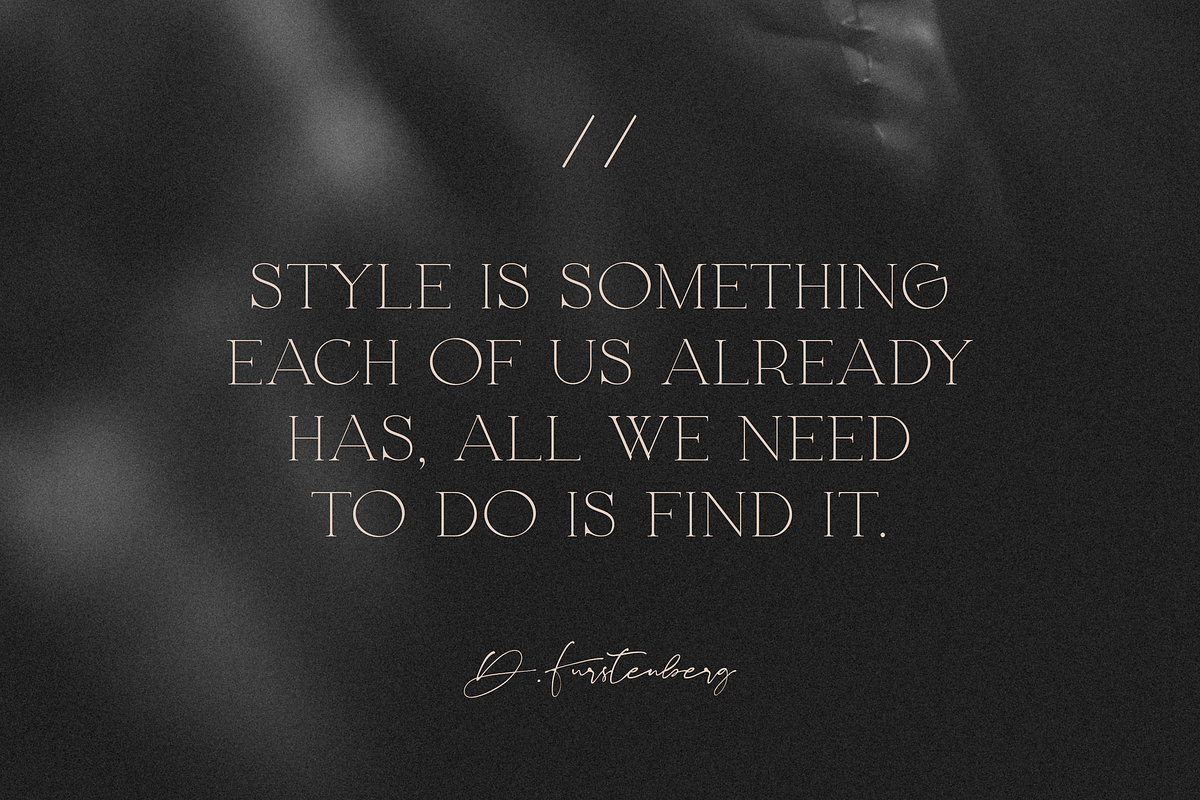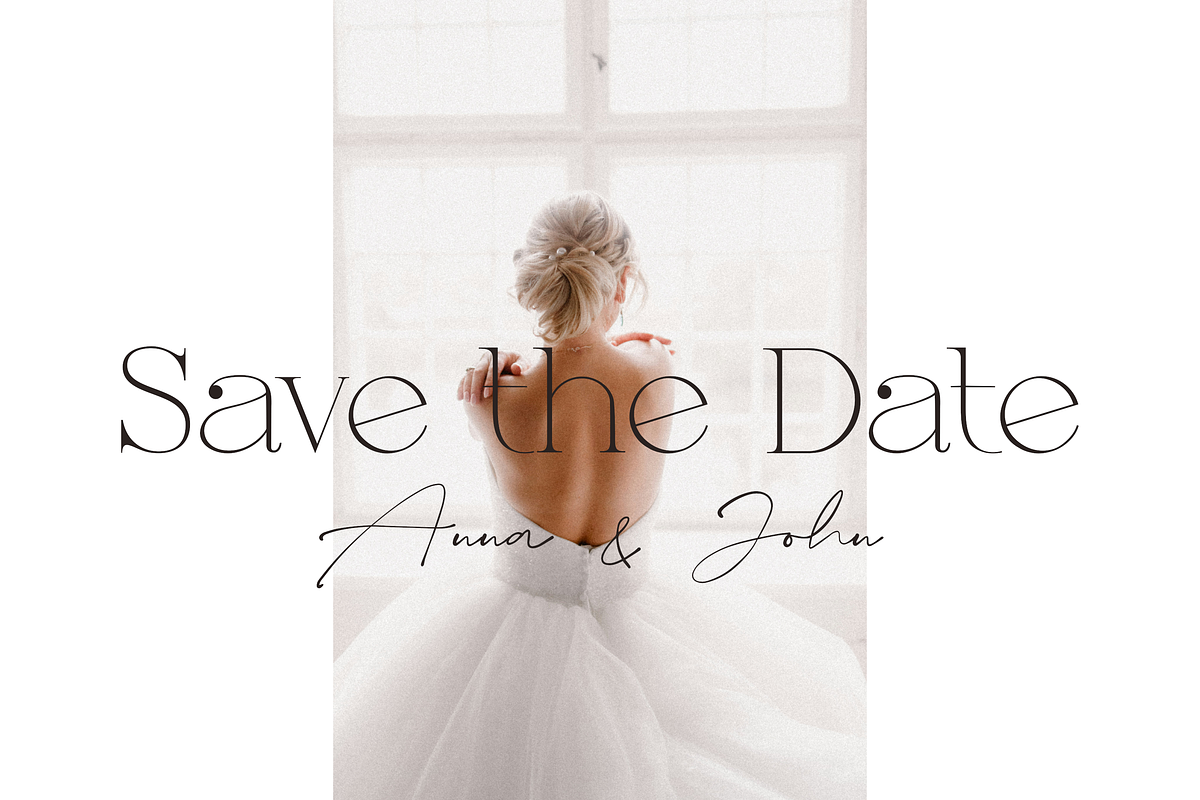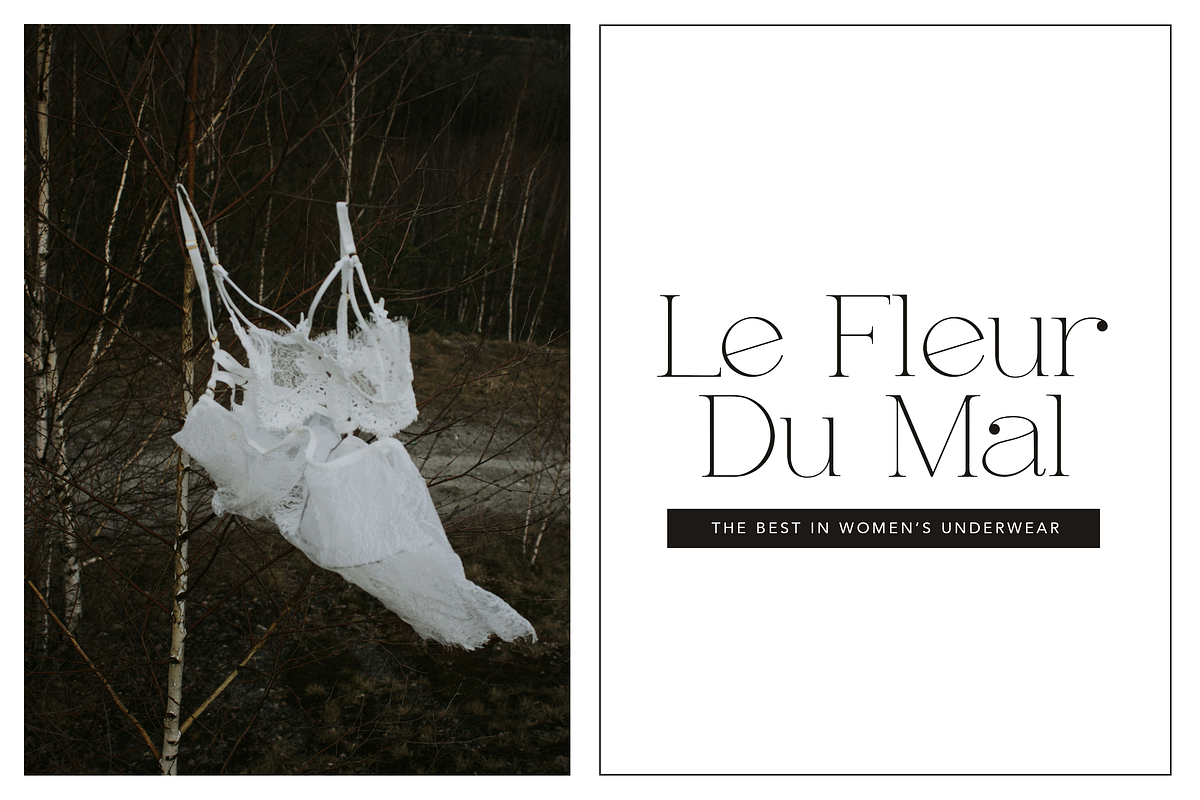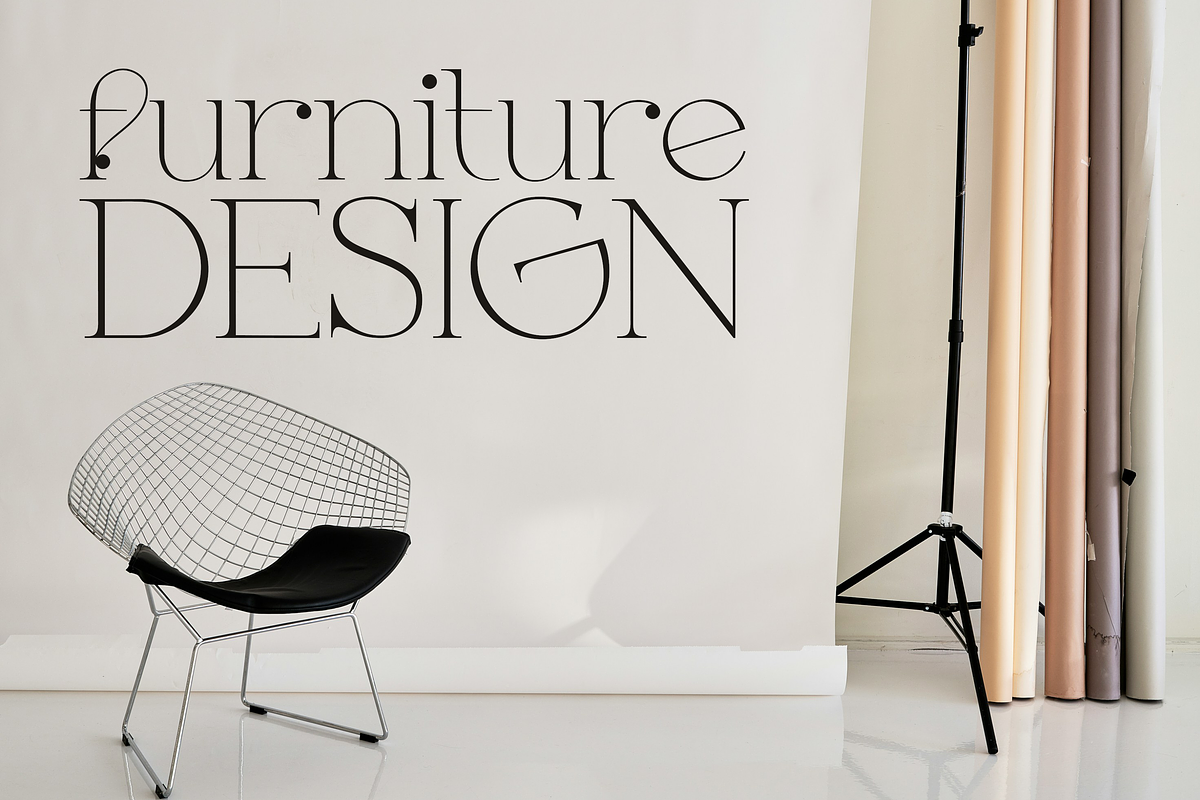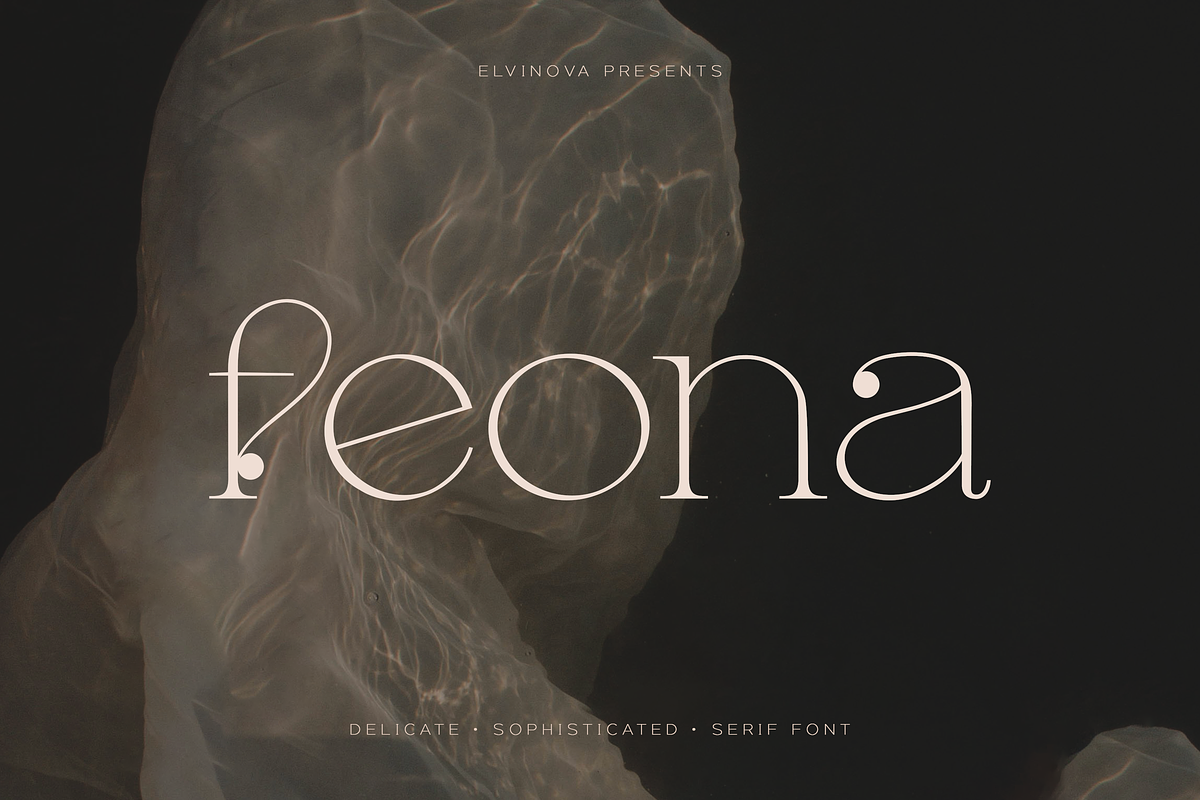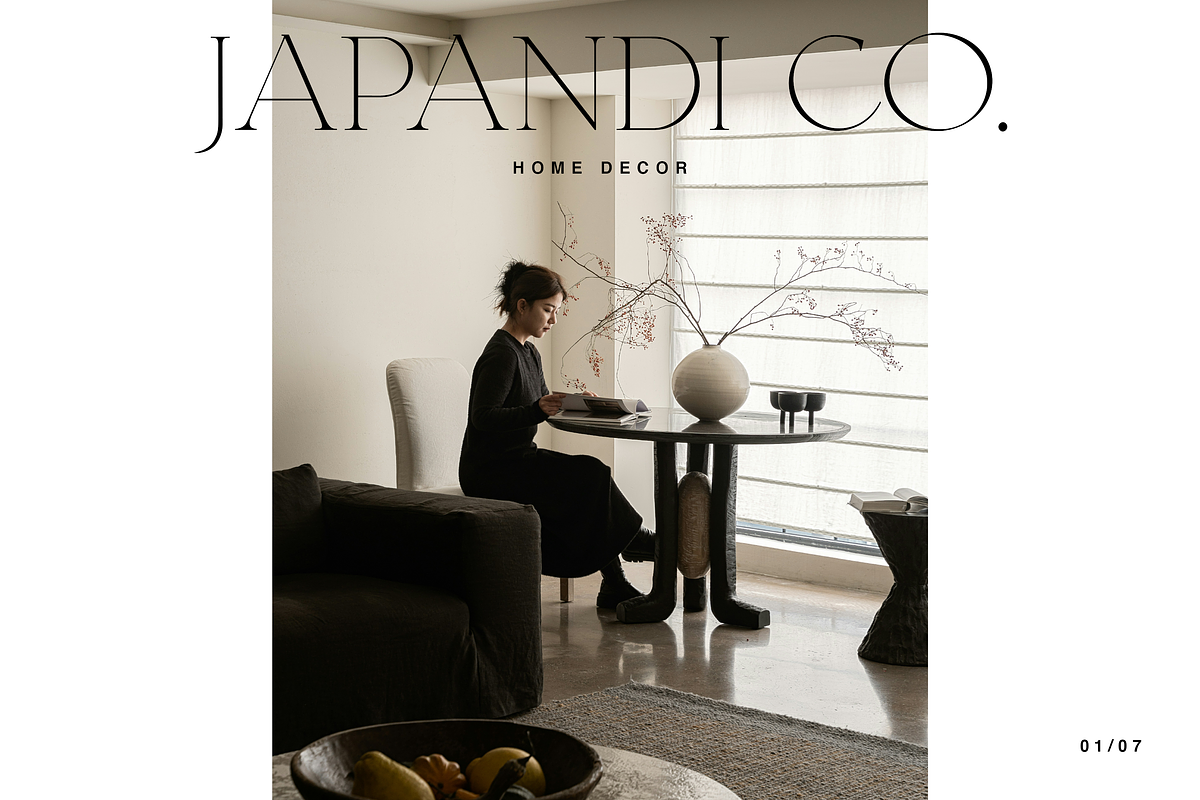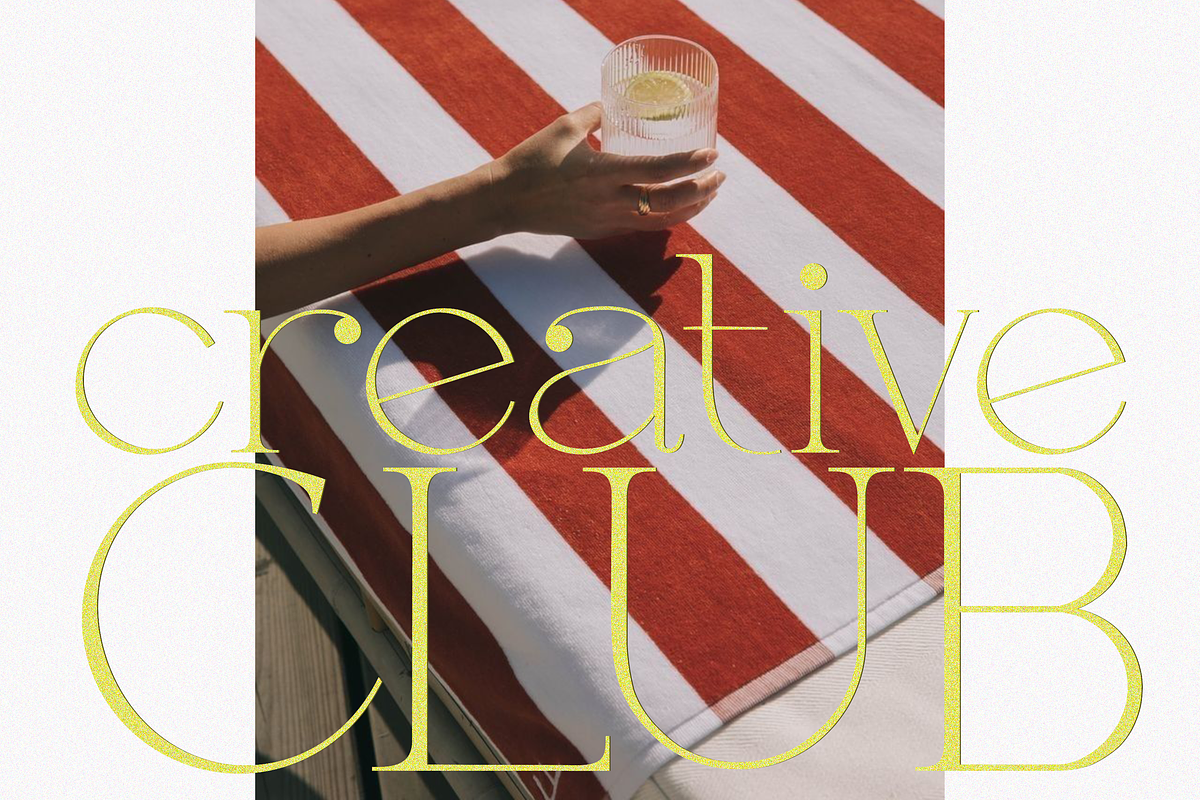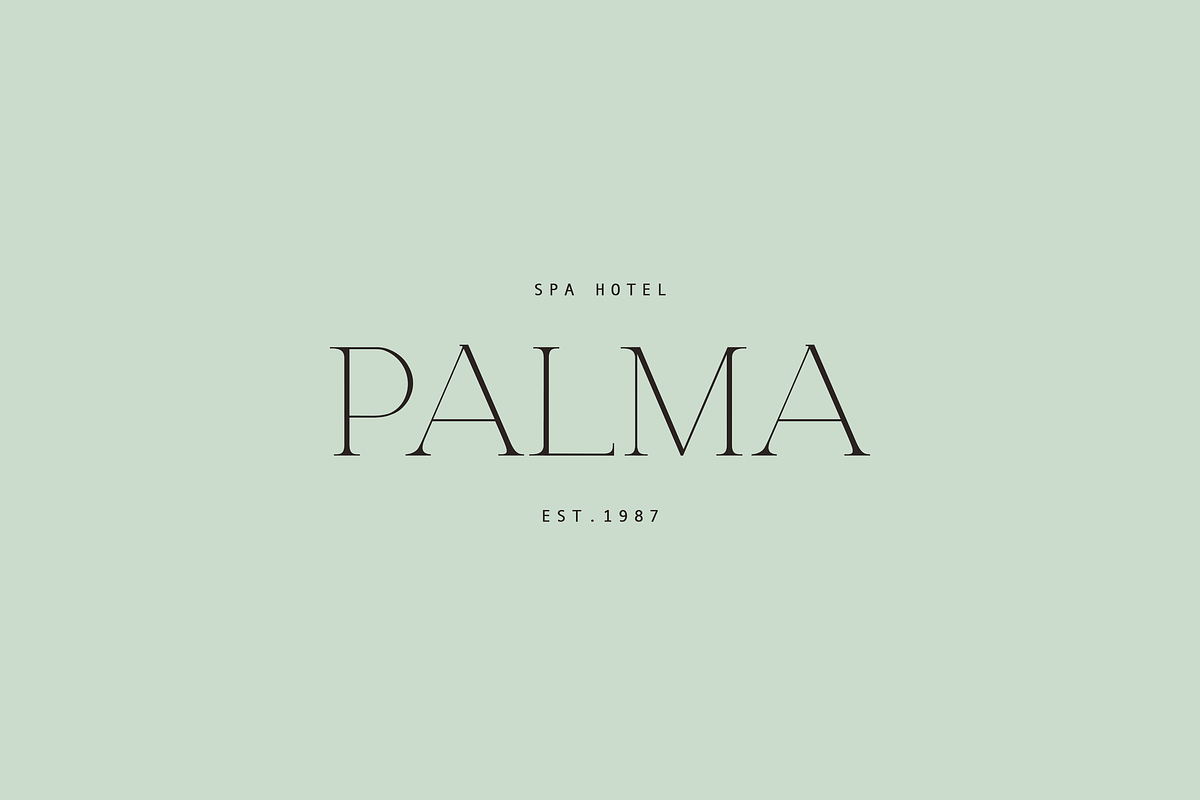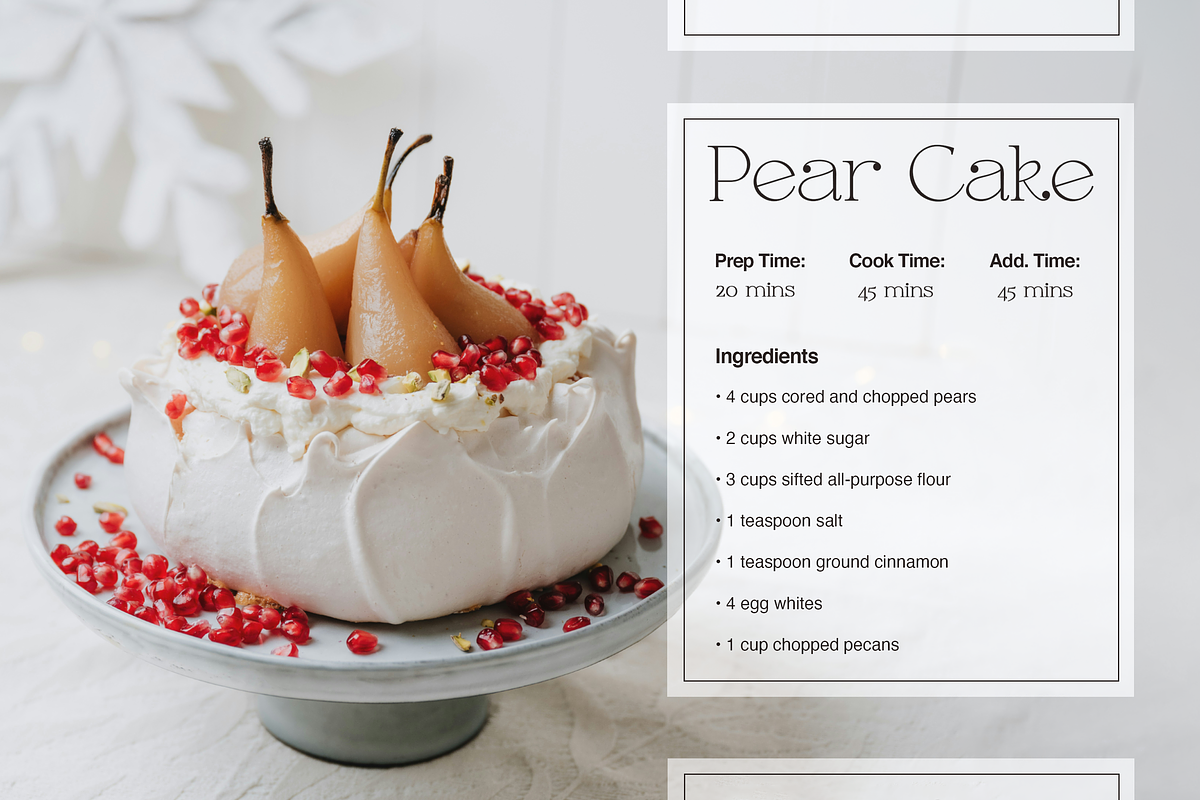
Feona Delicate Serif
Feona is a soft, feminine serif font with a stylish, modern feel. Perfect for bringing a touch of elegance to wedding invites, logos, or luxury branding.